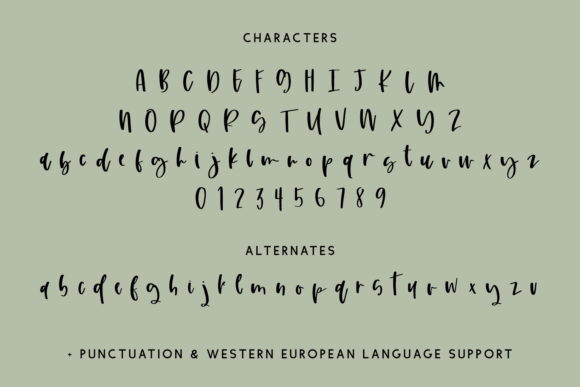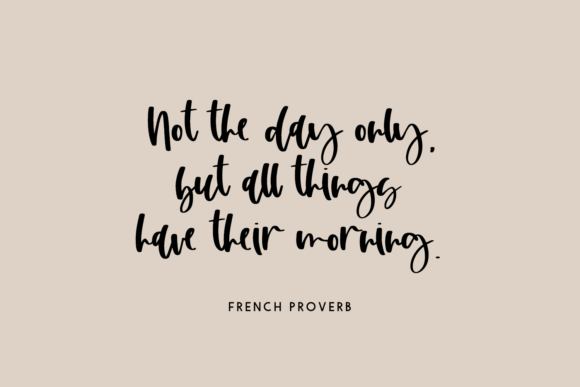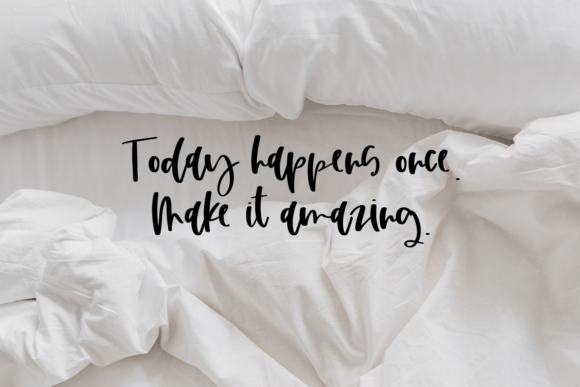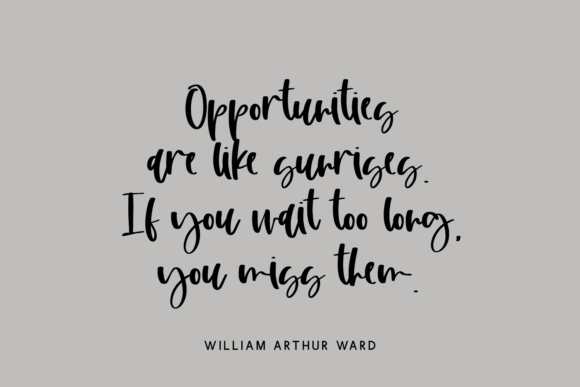
About Sweet Toast Script Font
Sweet Toast Script is a playful handwritten font. Sweet Toast has clean edges for vinyl cutting and a carefree style for a variety of projects.
Sweet Toast Script is best for:
– logos + branding
– crafting with your Cricut or Silhouette machine, as it features super smooth lines for an easy cut
– website design + website accents – think travel blogs, fashion blogs, & more
– clean print design, like magazines + flyers
– header elements that need a handwritten touch
– quote graphics for social media